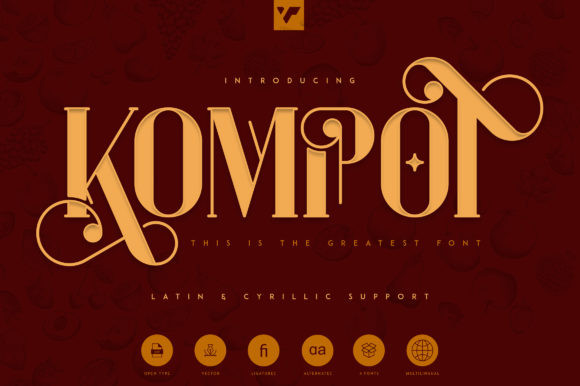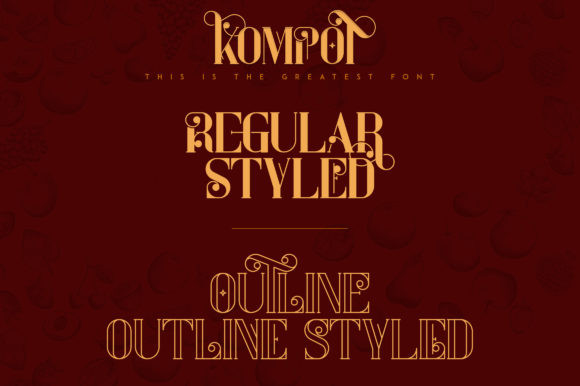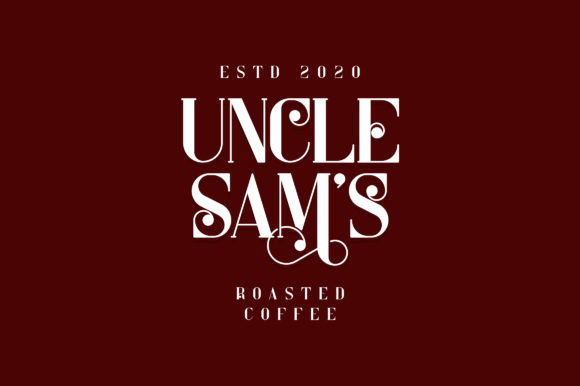
Kompot Font
Kompot is a swirly, vintage typeface with 4 styles to enchant your next project. They are very versatile fonts that work great in large and small sizes. Kompot is perfect for branding projects, homeware designs, product packaging, magazine headers – or simply as a stylish text overlay to any background image. Enjoy using these exquisite fonts!